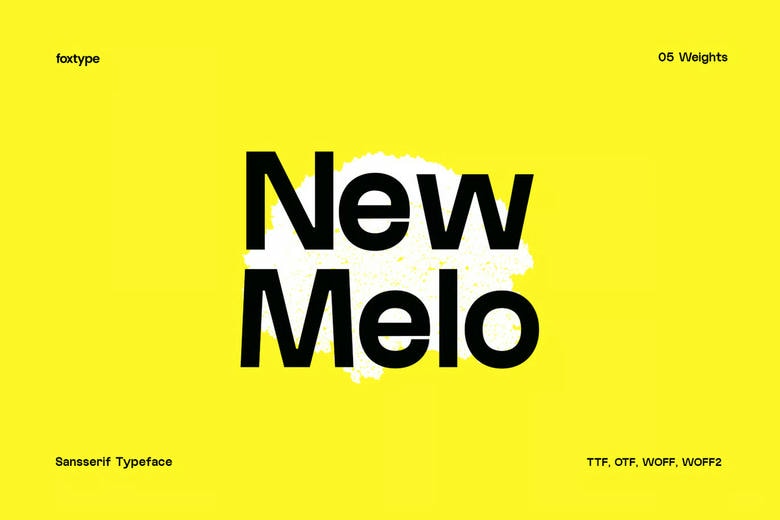
New Melo Font
New Melo is a modern sans-serif typeface made for people who want clarity, flexibility, and a fresh look. Its clean shapes and balanced design help your work appear professional and friendly, whether online or in print.
New Melo takes inspiration from popular typefaces like Poppins and Cottorway. It blends a simple, modern style with strong visual impact, making it great for bold headlines and easy-to-read body text.
New Melo comes in five weights: Light, Regular, Medium, Semi Bold, and Bold. This range gives you options for branding, editorial layouts, websites, apps, marketing materials, and business documents.
Whether you are designing a startup brand, social media graphics, a website, or business documents, New Melo fits smoothly into your creative process.
New Melo Sans Serif Font